Beach fonts are your ticket to creating designs that feel like a warm ocean breeze, smell like coconut sunscreen, and sound like waves crashing on the shore. Whether you’re designing for a surf shop, a beach resort, or just want to add some coastal charm to your next project, the perfect beach font can make all the difference.
In this article, we’ll explore the best beach fonts that are “making waves” in 2026. From laid-back script fonts that feel like handwriting in the sand to bold display fonts that scream “beach party,” we’ve got your coastal typography needs covered. So grab your favorite tropical drink, and let’s dive into this typographic ocean together!
The Ultimate Wave of Beach Fonts for 2026
Not all beach fonts are created equal – some capture that perfect sunset vibe while others feel more like a hurricane warning. I’ve carefully curated this list of the most “shore-worthy” beach fonts that are absolutely crushing it in 2026:
Sunrise Waves
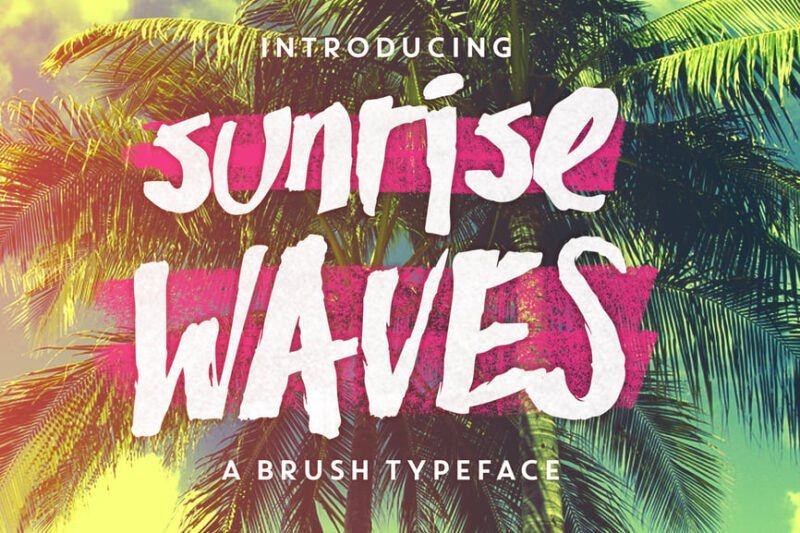
Sunrise Waves is a sans-serif font that captures the essence of surf and water. Its fluid letterforms evoke the gentle undulations of ocean waves, making it perfect for beach-themed designs and coastal branding.
Beach Crush
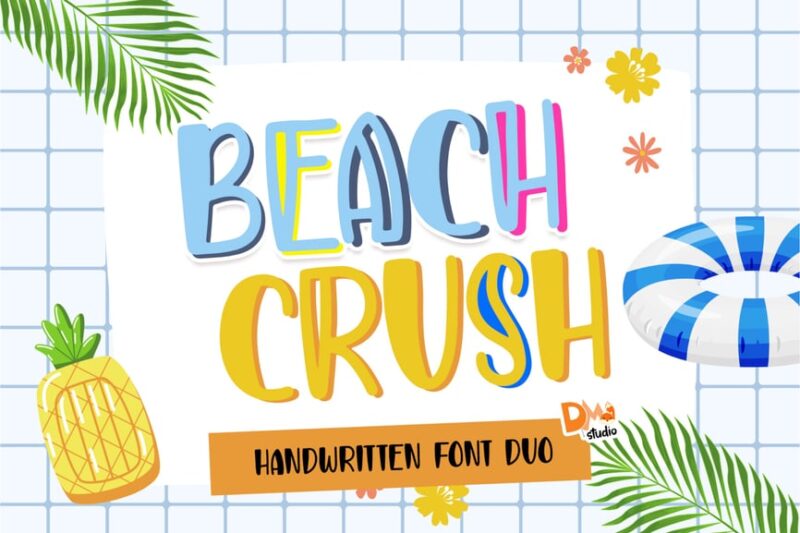
Beach Crush is a playful script and handwritten summer font that embodies the spirit of vacation and summer. Its casual, relaxed style is ideal for creating designs that evoke feelings of leisure and tropical getaways.
Beach Boy – Tropical Sans Font
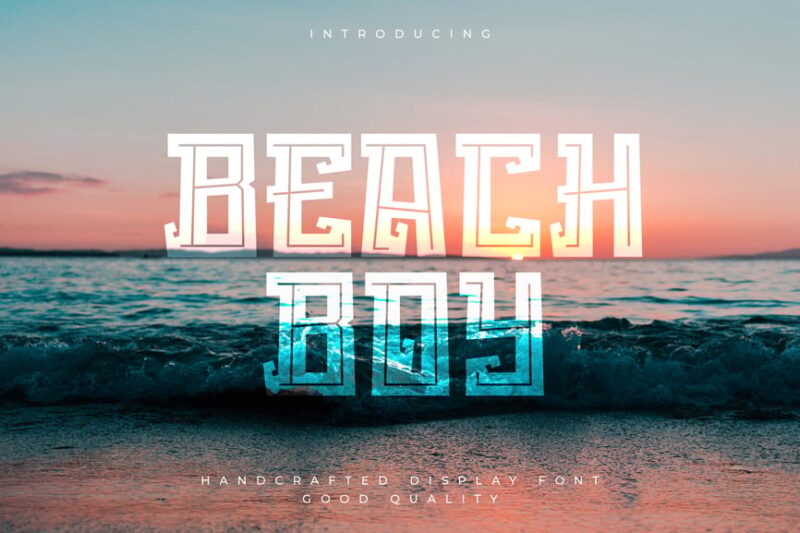
Beach Boy is a tropical sans-serif font with a decorative flair, perfect for surf and marine-themed designs. Its bold, energetic characters capture the vibrant spirit of beach culture and ocean adventures.
Sand Beach Font
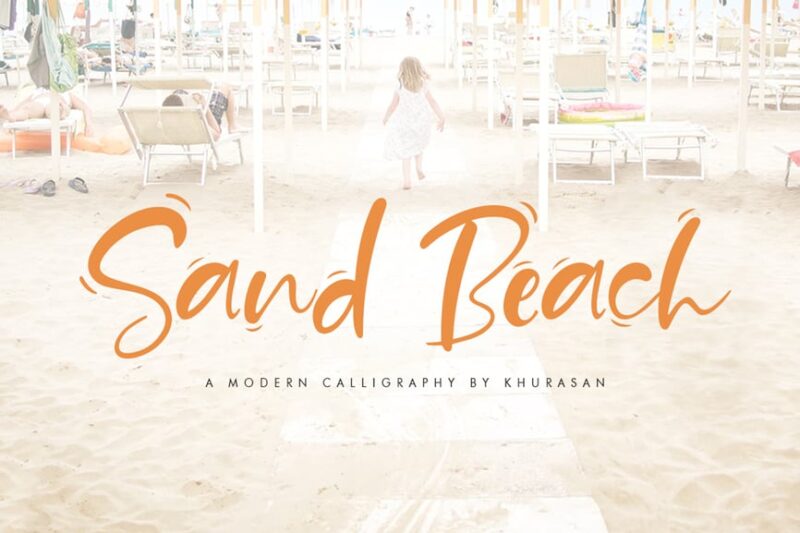
Sand Beach Font is a script and handwritten typeface that evokes images of beaches and sunsets. Its organic, flowing lines mimic the natural curves found in sand dunes and coastal landscapes, making it ideal for summer-themed designs.
Retro Vacation Font – The Tide
The Tide is a retro-inspired blocky font that captures the nostalgia of surf culture and vacations. Its vintage aesthetic is perfect for creating designs with a throwback feel, ideal for beach resorts and surf shops.
The Beach
The Beach is a script and handwritten font that emulates natural hand lettering. Its organic, flowing style is perfect for creating a personal, authentic feel in designs related to coastal themes and beach life.
Kuta Beach – Summer Font
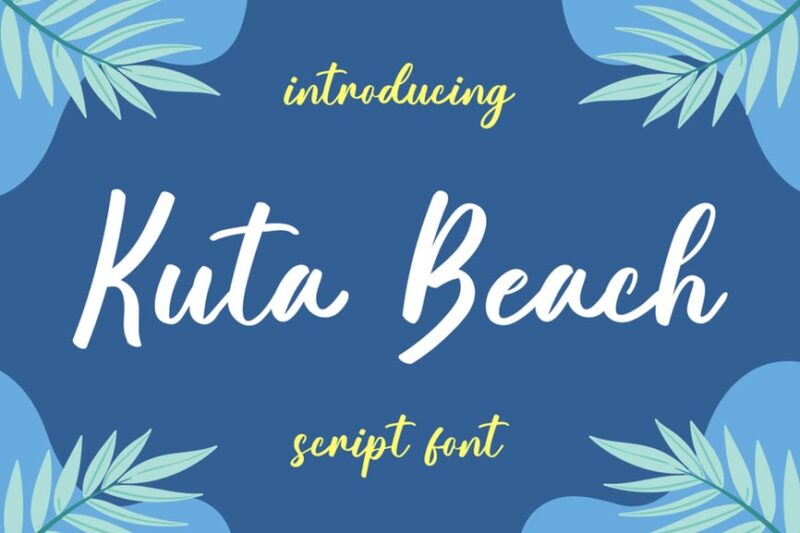
Kuta Beach is a lively script and cursive font that embodies the spirit of surf and beach culture. Its energetic, casual style is perfect for summer-themed designs, beach wear brands, and tropical event promotions.
Onboard | Smooth Script Font
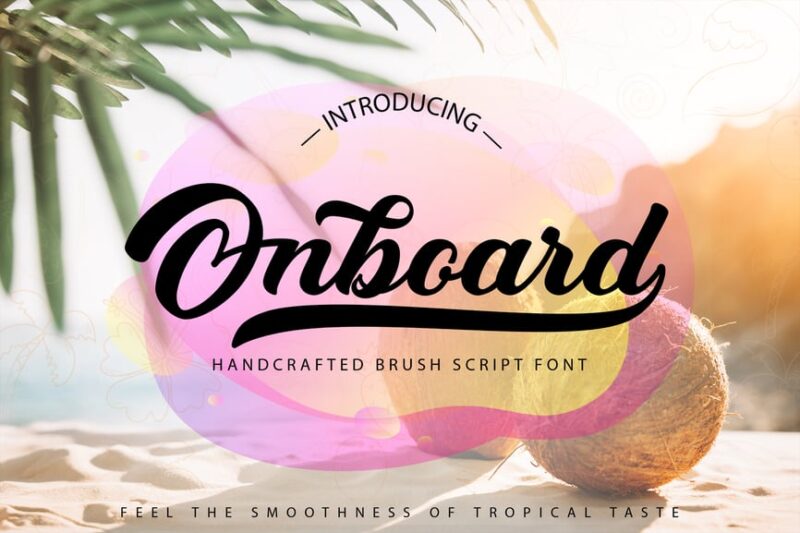
Onboard is a smooth script font that combines surf aesthetics with elegant script typography. Its flowing lines and graceful curves make it ideal for high-end beach resorts, luxury surfwear brands, and sophisticated coastal-themed designs.
Summer Wednesday
Summer Wednesday is a carefree script and handwritten font that captures the essence of surf culture and travel. Its relaxed, playful style is perfect for creating designs that evoke a sense of adventure and laid-back summer vibes.
Summer Surfing – Display Font
Summer Surfing is a versatile distressed font that combines serif, sans-serif, and decorative elements. Its unique design captures the spirit of surf culture while maintaining a professional edge, making it suitable for both casual and business-oriented beach-themed projects.
Fun Beach – Playful Handwritten Font
Fun Beach is a playful handwritten font that embodies the joy of water activities and beach fun. Its lively, informal style is perfect for children’s beach products, family vacation promotions, and water park branding.
Morning Beach
Morning Beach is a decorative font that captures the serene atmosphere of early mornings by the sea. Its unique design combines elements of surf and beach aesthetics, making it ideal for coastal-themed logos, beachwear brands, and ocean-inspired art.
Soda Land – Fancy Display
Soda Land is a thin bubble font that brings a touch of whimsy to vacation and tropical themes. Its playful, decorative style is perfect for creating eye-catching designs for beach resorts, tropical events, and summer festivals.
Love Beach – Modern Retro Serif
Love Beach is a modern retro serif font that combines coastal charm with vintage aesthetics. Its unique design is perfect for creating romantic, nostalgic vibes in beach wedding invitations, coastal-themed love stories, and retro surf shop branding.
And hey, if you find yourself getting lost in the world of beach typography, just remember – that’s exactly the kind of escapism these fonts are designed to provide. Embrace the journey, and let these coastal typefaces carry your designs to new creative shores.